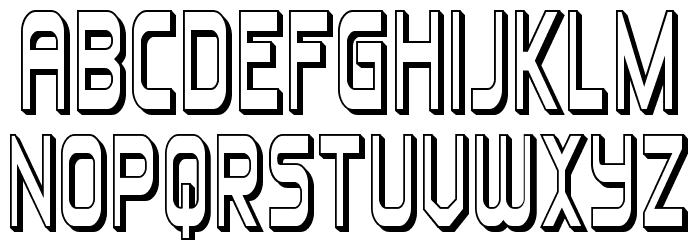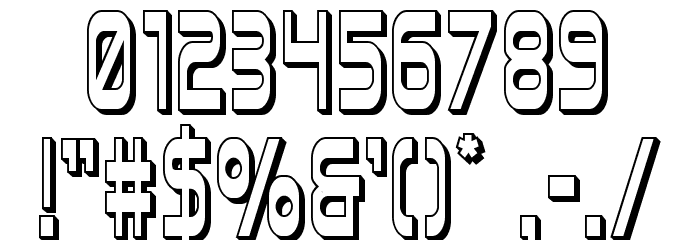
Blizzard Shaft 3D Font
This font features a bold, three-dimensional design with a distinct outline that gives each character a shadowed effect. The uppercase letters are uniformly structured, with a geometric and blocky appearance that emphasizes clarity and impact. The numbers and special characters maintain this cohesive style, ensuring consistency across all elements. The font's design is modern and eye-catching, making it suitable for projects that require a strong visual presence. Its structured form and shadow effect add depth, making it ideal for headlines or titles that need to stand out.
A bold, 3D outlined font with a geometric, modern style.
- Proposed Projects: Ideal for posters, headlines, logos, and any design needing a striking, modern look.